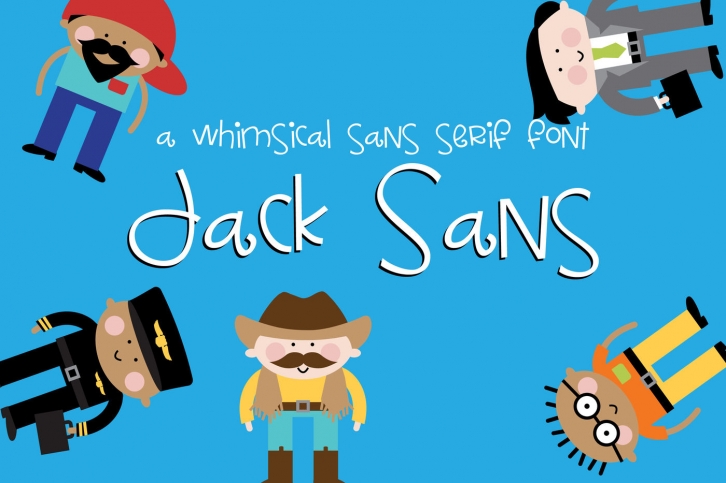
This whimsical sans serif font has a fun and bouncy baseline and is the coordinated sister font of PN Jack Sprat. Font includes:
• Numbers and Symbols
• International Characters